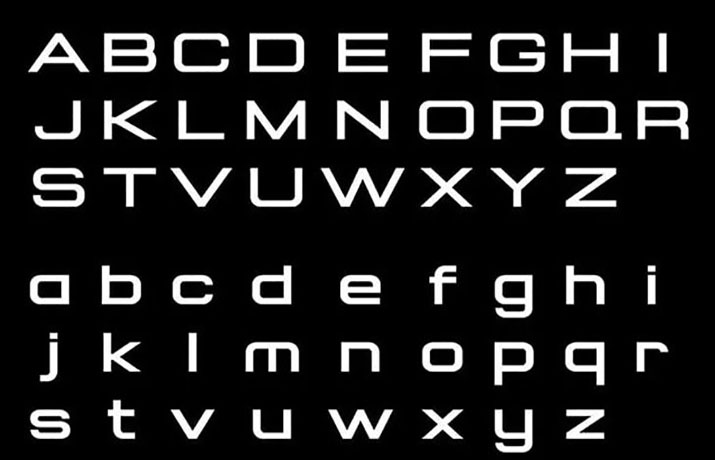
Akrux Black Font is a futuristic variable wide typeface designed by Eugene Bunin. It is inspired by forms that are close to futurism, stars, and space. Everything related to space, movies, and sci-fi would look great with this font.
The font family has 3 weights and each weight has a variable width option. This means that you can adjust the width of the font to create a more condensed or expanded look.
It is a great choice for headlines, titles, and posters. It can also be used for body text, but it is best used in short passages. The font is well-suited for both print and digital applications.
Akrux Black is also a great choice for titles. The font’s wide variable width allows you to adjust the width of the font to create a more condensed or expanded look.
| Font Name: | Akrux Black Font Family |
| Style: | Futuristic, Display, Typeface |
| Font Designer: | Eugene Bunin |
Akrux Black is perfect for posters. The font’s futuristic design will make your posters look stylish and eye-catching.
You can use this techno font for various types of neon designs, wallpaper designs, and background image design purposes. It is appropriate for use in electronics designs, signboard designs, product titling purposes, posters designs, home decor designs, symbol designs, and street banner designs.
This typeface is good for use in stylish postcard designs, greeting card designs, advertisement purposes, housewares designs, and so on related purposes.